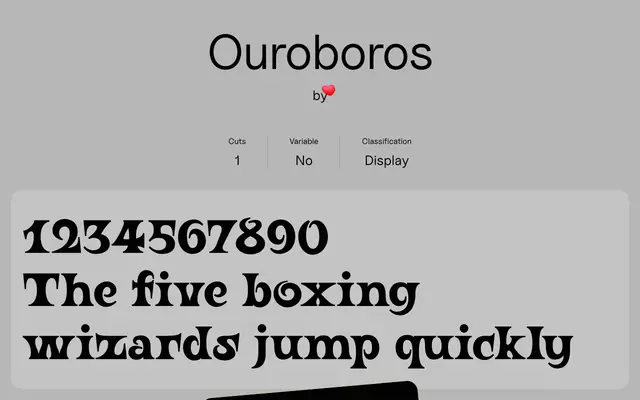
Ouroboros
Released through Uncut's free font library, Ouroboros is a display typeface offered in one cut with no variable axis. The SIL Open Font License permits commercial use, modification and redistribution, subject to the licence's standard conditions. With no italic or condensed variants, it is best suited to short-form headline work.
The foundry classifies this typeface under Display, indicating it is intended for large-scale headline or decorative use rather than extended text setting.